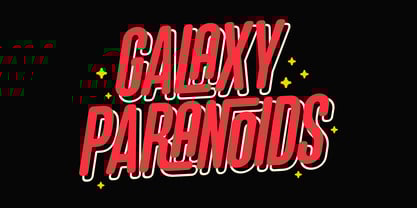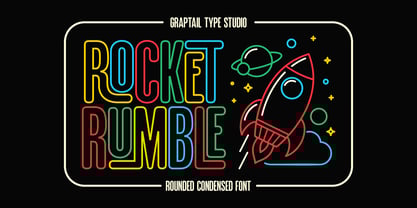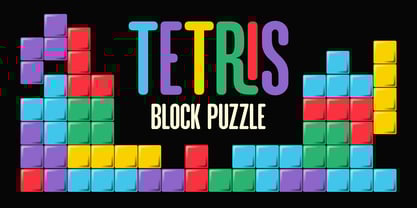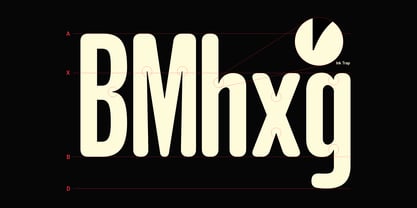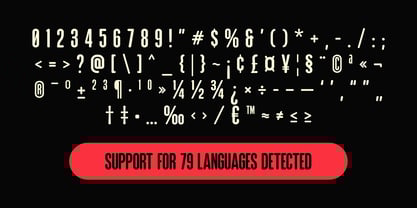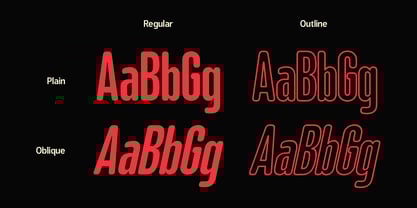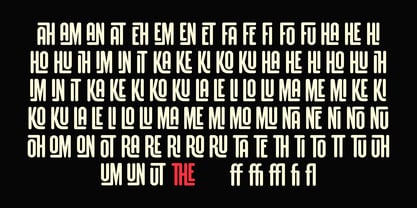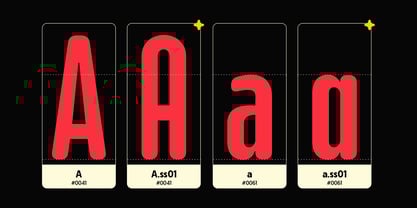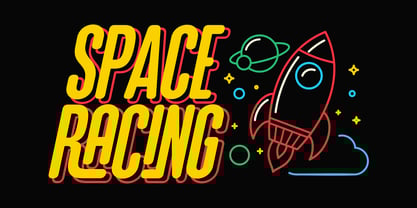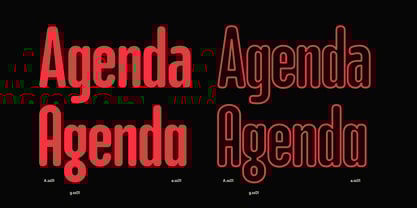
Gts Rocket Rumble
by Graptail
The Gts Rocket Rumble Font Family was designed by Teuku Deky Firnanda and published by Graptail. Gts Rocket Rumble contains 4 styles and family package options. More about this family
GTS Rocket Rumble Font is a retro-inspired, rounded, condensed typeface designed to evoke a sense of playful energy and bold expression. This font comes in two styles, Regular and Outline, offering versatility for various creative projects. With its smooth, rounded edges and condensed structure, Rocket Rumble is perfect for capturing a vintage aesthetic while remaining modern and sleek.
The font is particularly well-suited for neon-themed gaming graphics, delivering a dynamic, glowing look that enhances any digital or interactive design. Its legibility and unique personality make it an excellent choice for design, especially when aiming for a fun, retro-futuristic vibe. Rocket Rumble delivers a stylish punch with a nostalgic twist.